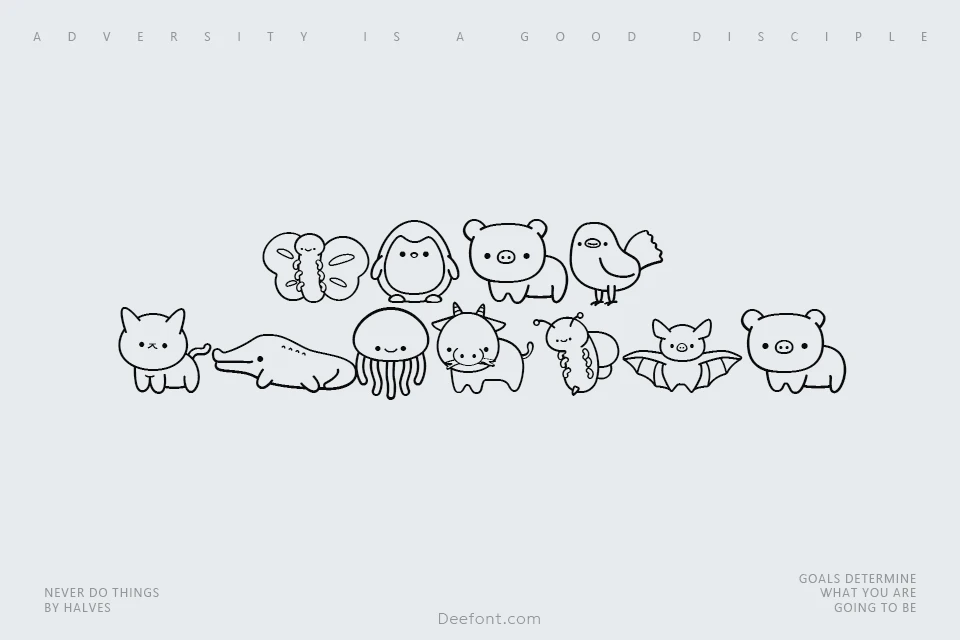
Cute Animals Dingbat Font
Cute Animals Dingbat Font is a delightful dingbat font featuring charming animal designs perfect for creative projects. This versatile typeface contains unique animal symbols and doodles that can be used for various applications including stickers, posters, t-shirts, cards, and apparel graphics. The font supports multiple languages and includes 62 distinct symbols, with each animal design appearing in both uppercase and lowercase variations. It’s designed with a simple, playful style that makes it ideal for adding a whimsical touch to any project. While free for personal use, a commercial license is required for business applications.